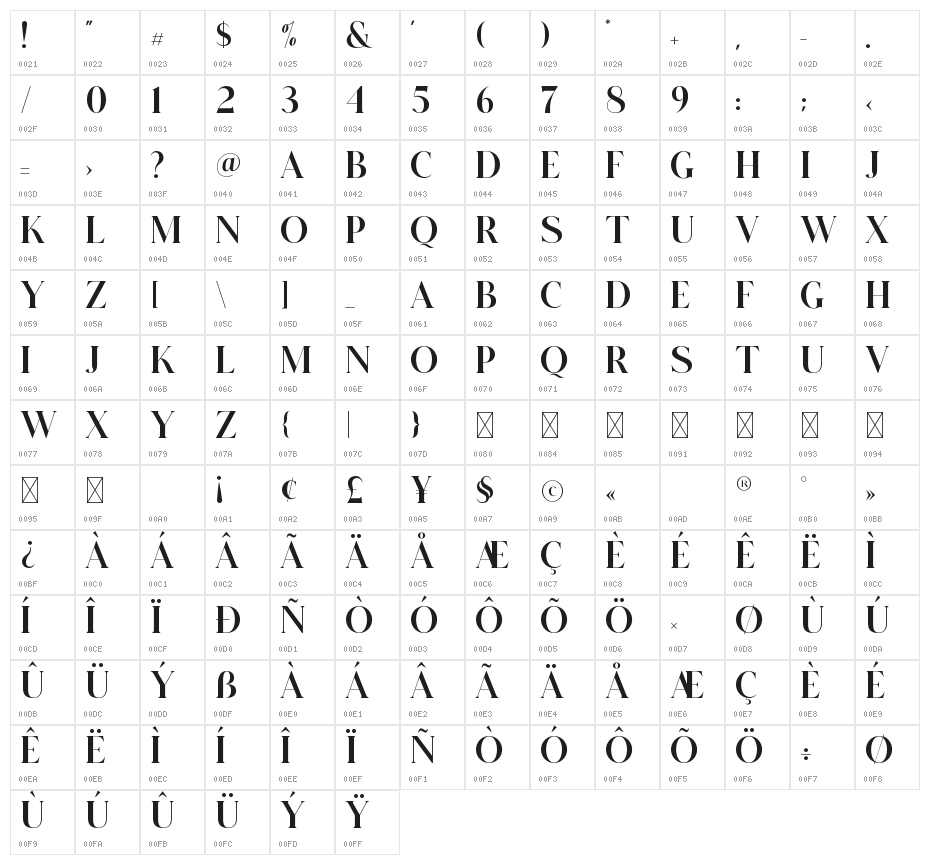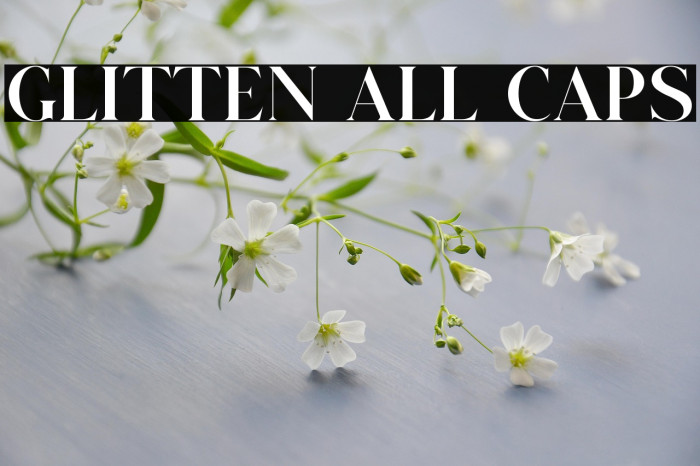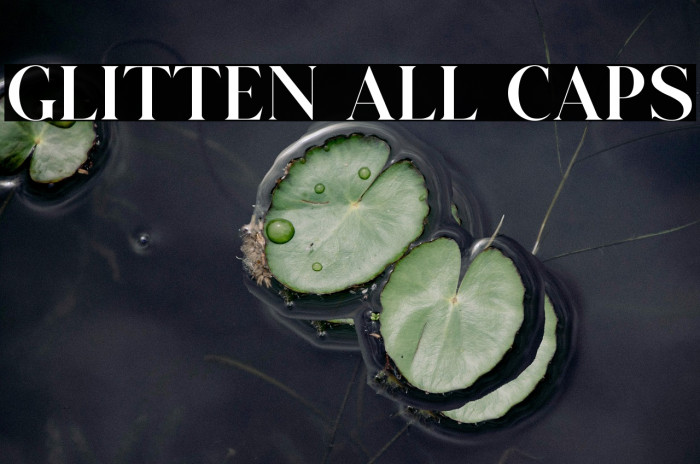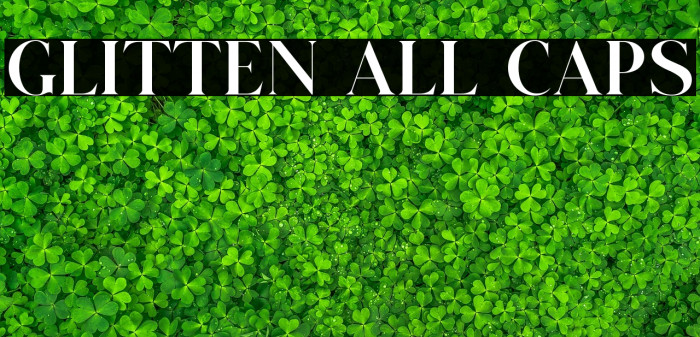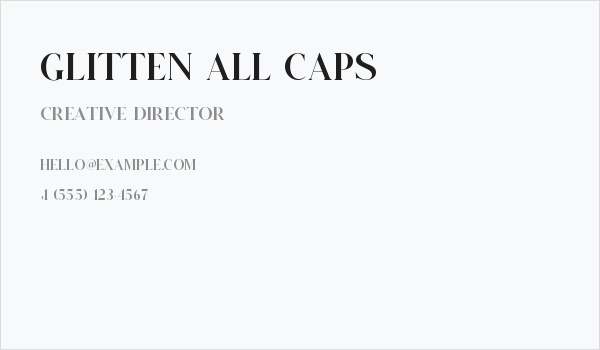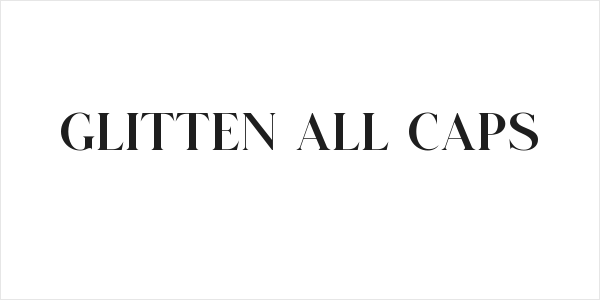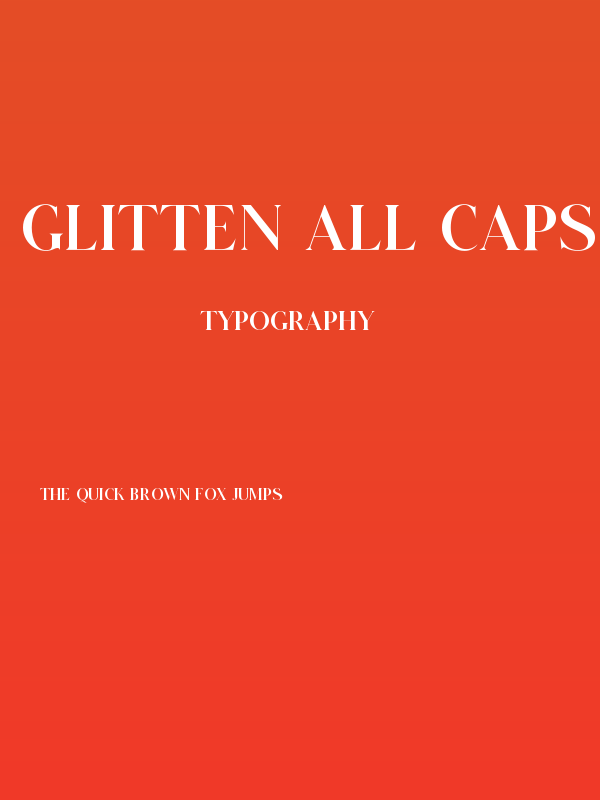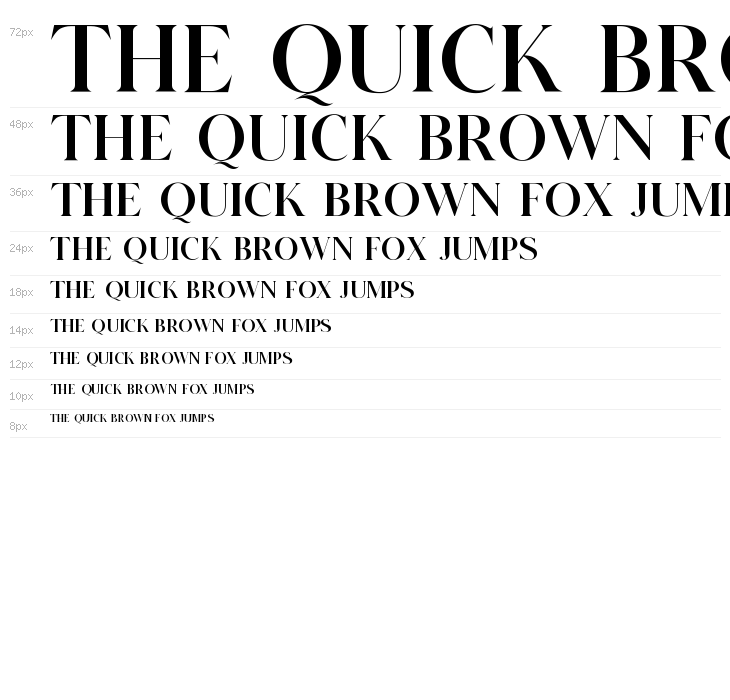
GLITTEN ALL CAPS Font
GLITTEN ALL CAPS Description
This font features a sophisticated and elegant design, characterized by its high contrast between thick and thin strokes. The serifs are sharp and pronounced, giving it a classic yet modern appeal. The uppercase letters are bold and commanding, while the numerals and special characters maintain a consistent style that complements the overall aesthetic. The font's clean lines and refined details make it suitable for a variety of applications where a touch of elegance is desired.
| Overall Style | Modern Classic |
| Use Case | Headlines, Logos, Editorial Design |
| Proposed Projects | Ideal for luxury branding, editorial design, wedding invitations, and high-end product packaging. |